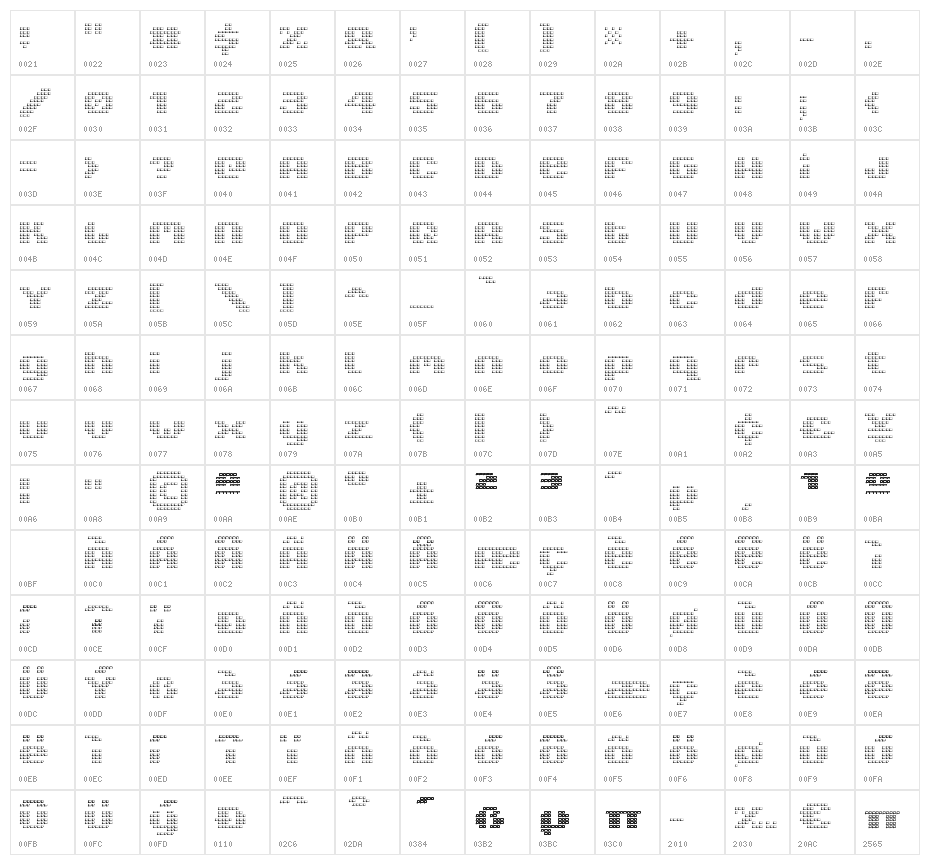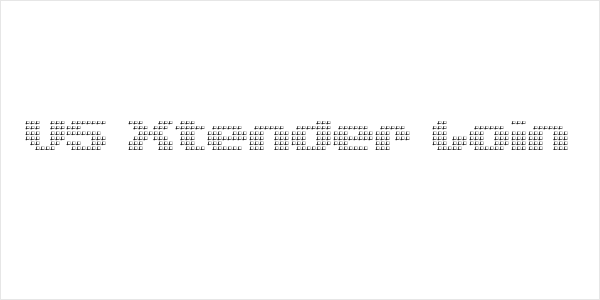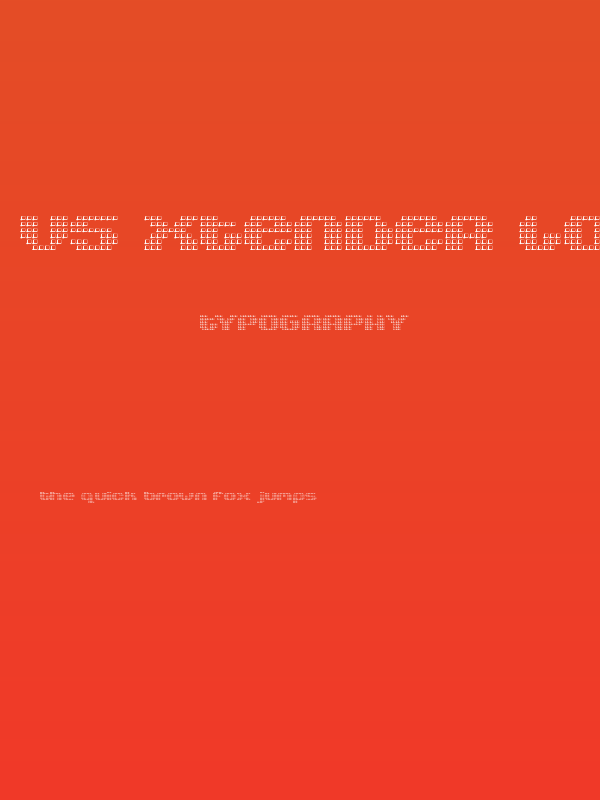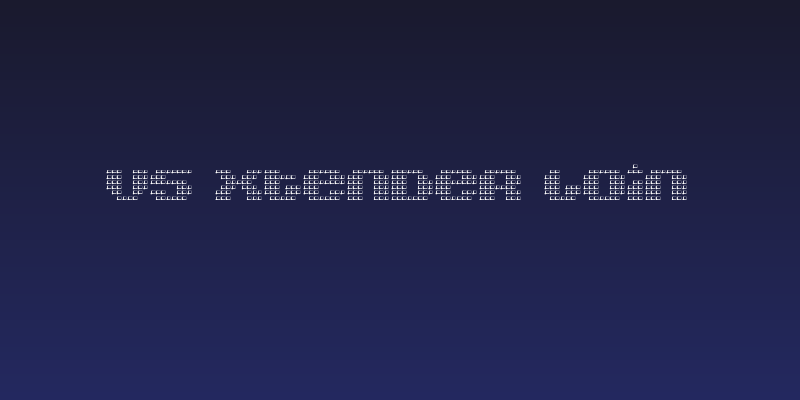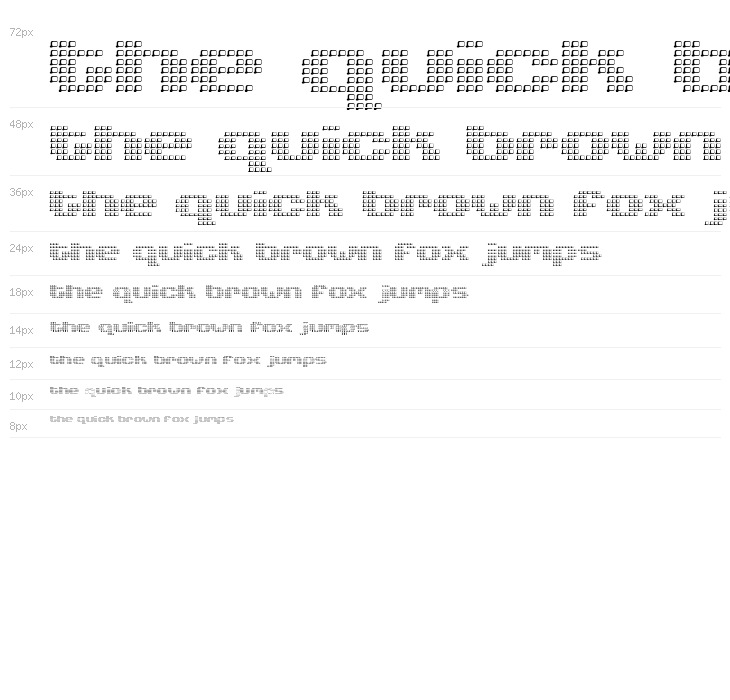
V5 Xtender Loin Font
V5 Xtender Loin Description
This font is a unique and creative design that mimics the appearance of digital or pixelated text. Each character is composed of small, square blocks that give it a distinctive, retro digital look. The font is highly stylized, with each letter and number crafted to maintain readability while embracing a blocky, grid-like structure. This design choice gives the font a playful yet technical aesthetic, reminiscent of early computer graphics or video game interfaces. The characters are evenly spaced, ensuring clarity and consistency across different uses. The font's geometric nature makes it stand out, offering a bold and eye-catching appearance that is perfect for projects that aim to evoke nostalgia or a tech-savvy vibe.
| Overall Style | Retro, Digital |
| Proposed Projects | Ideal for video game graphics, tech-themed posters, digital art projects, and retro-inspired branding. |